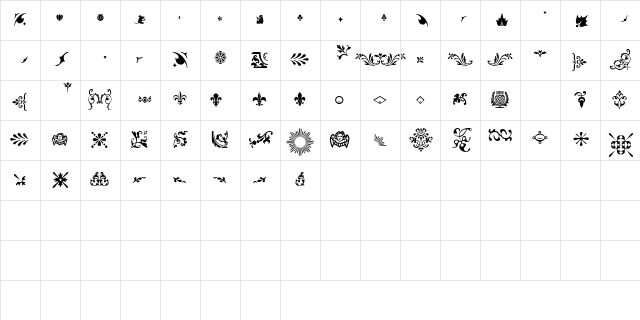
JournalDingbatsFiveSSK Regular
JournalDingbatsFiveSSK Family
Design Context for JournalDingbatsFiveSSK
JournalDingbatsFiveSSK is a composed and adaptable typeface that performs quietly and consistently across a wide range of design contexts.